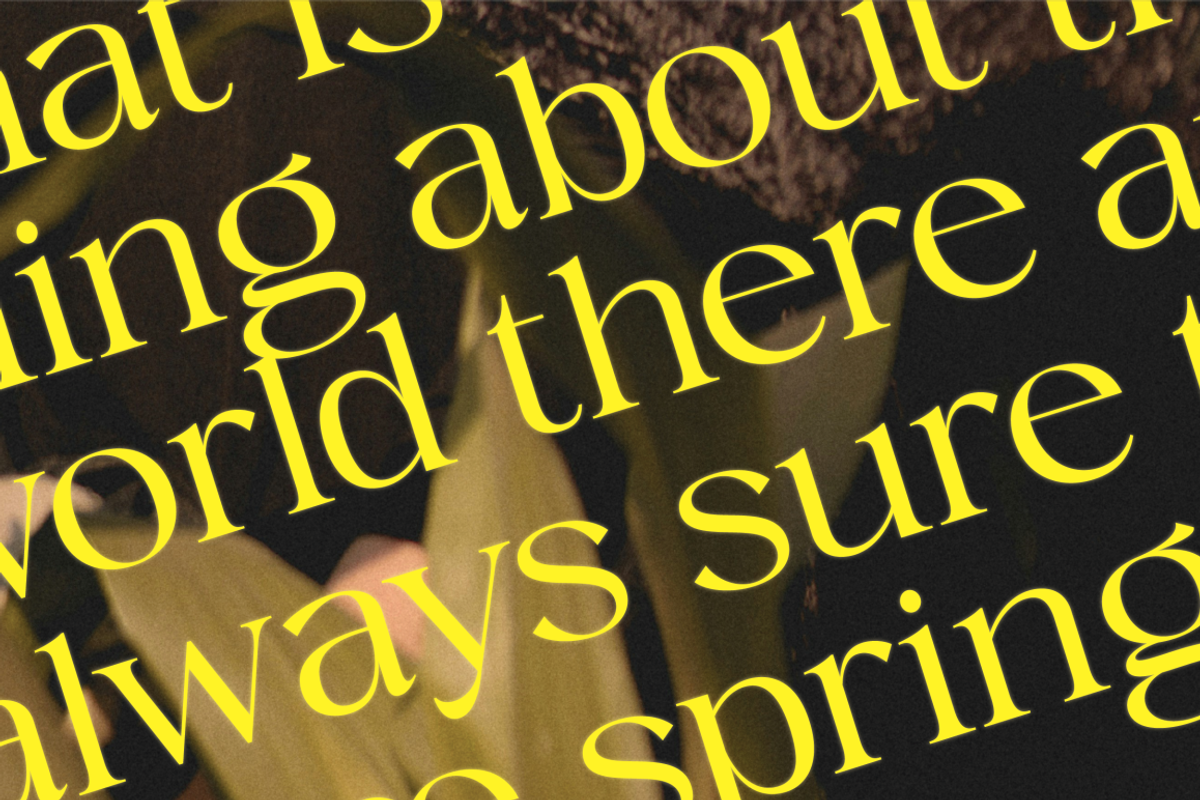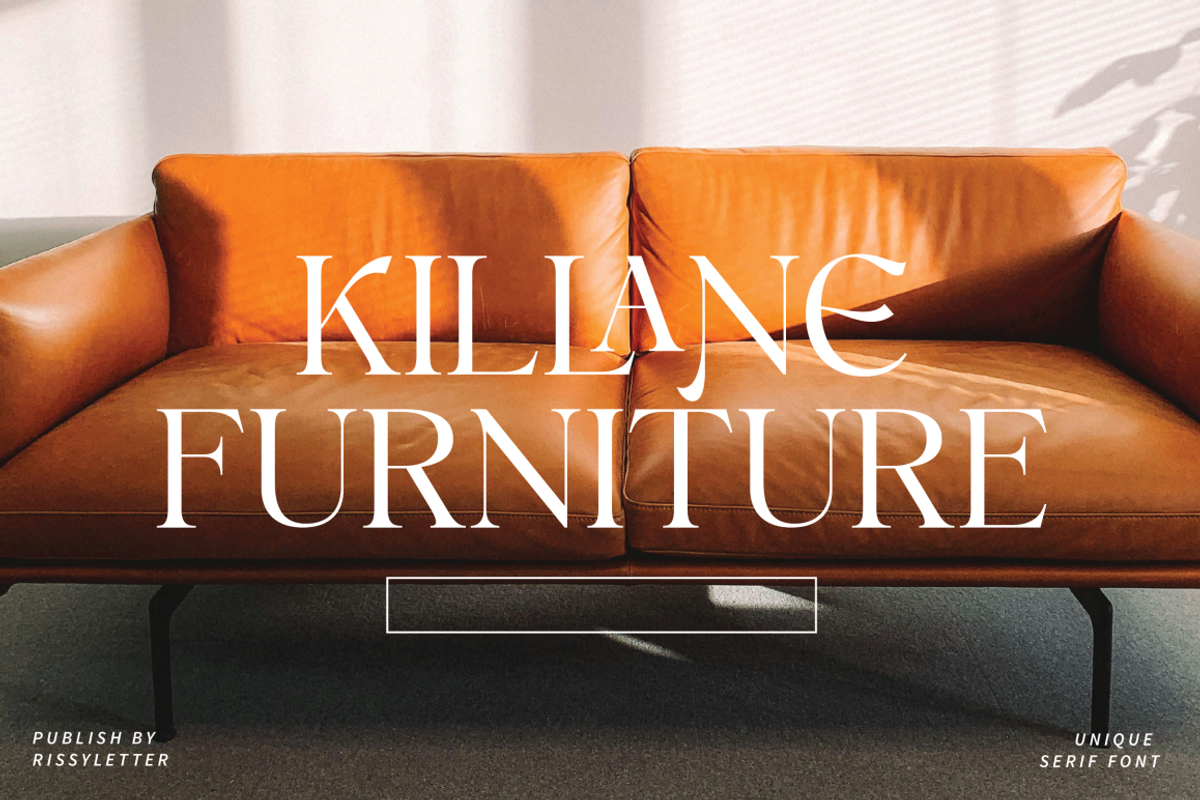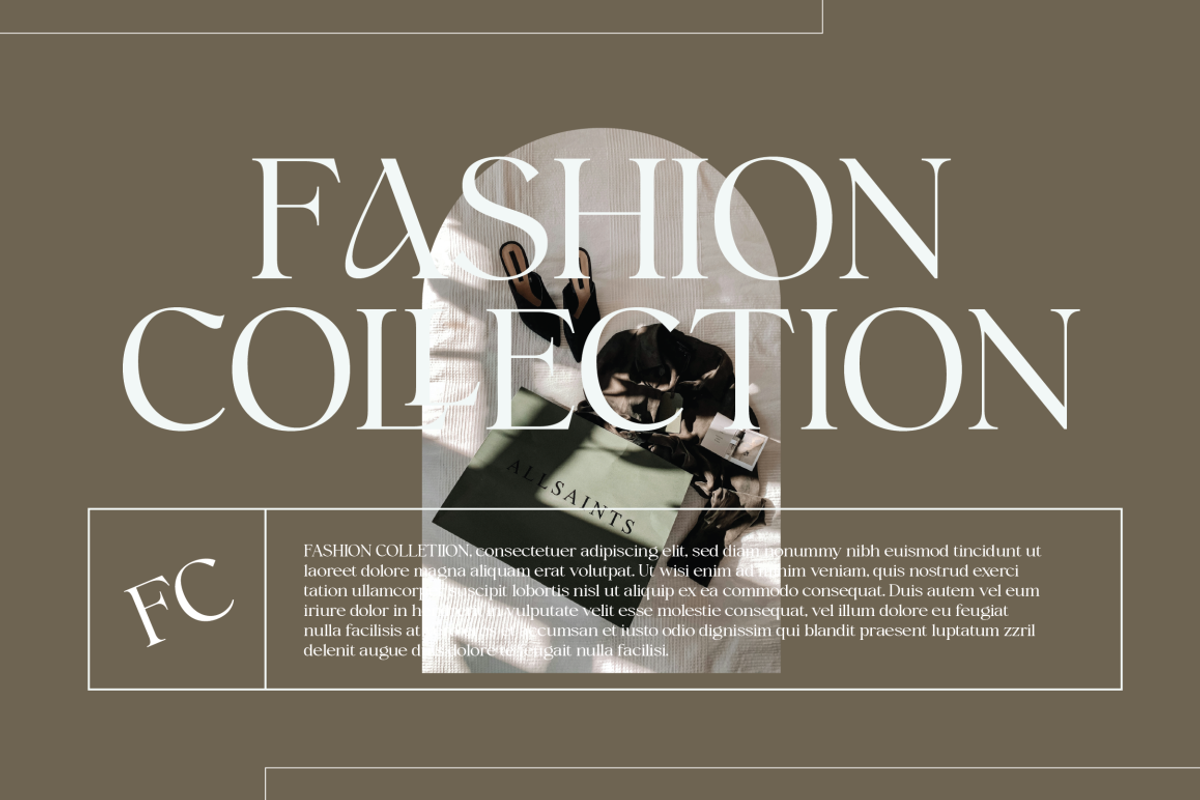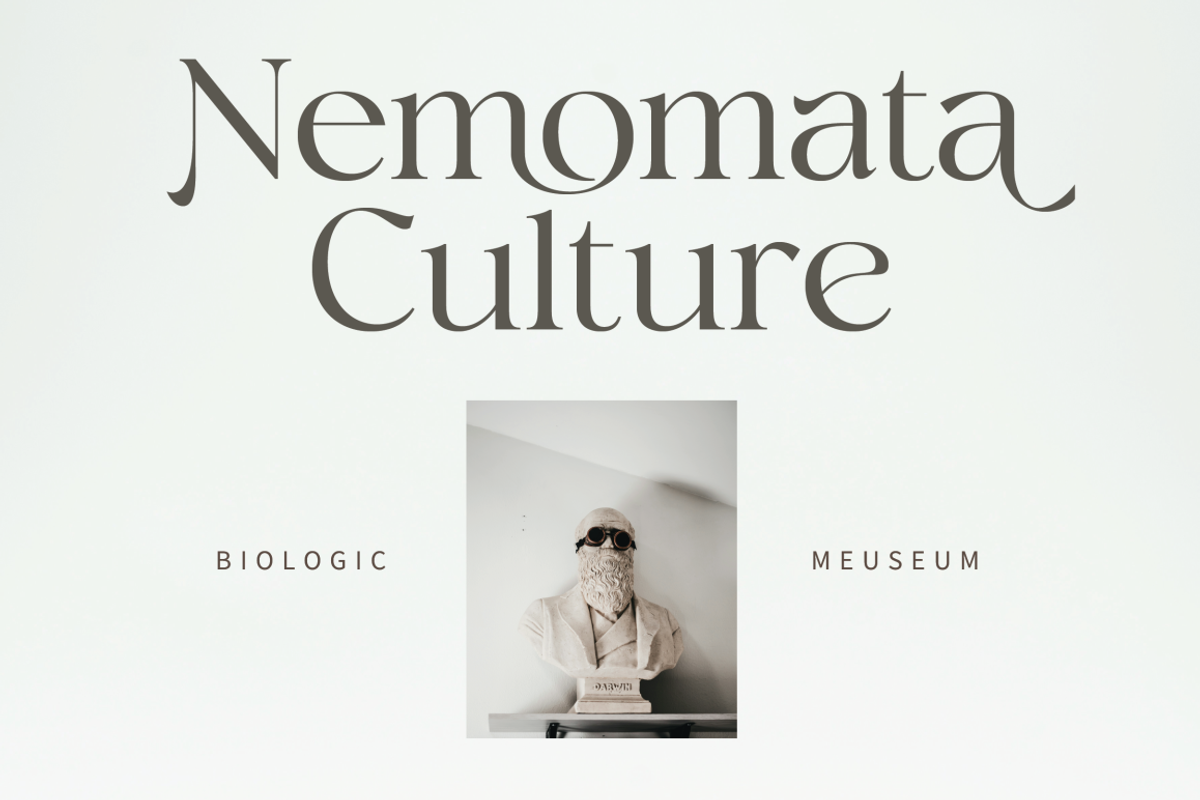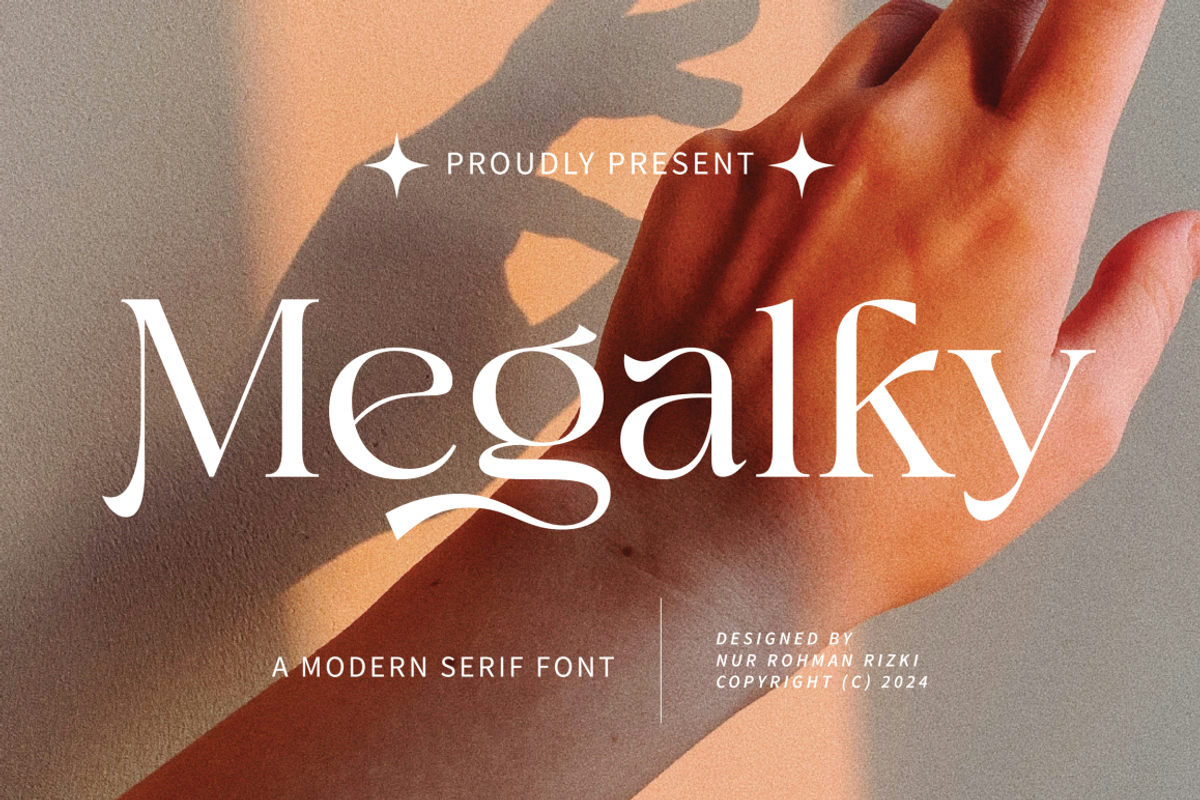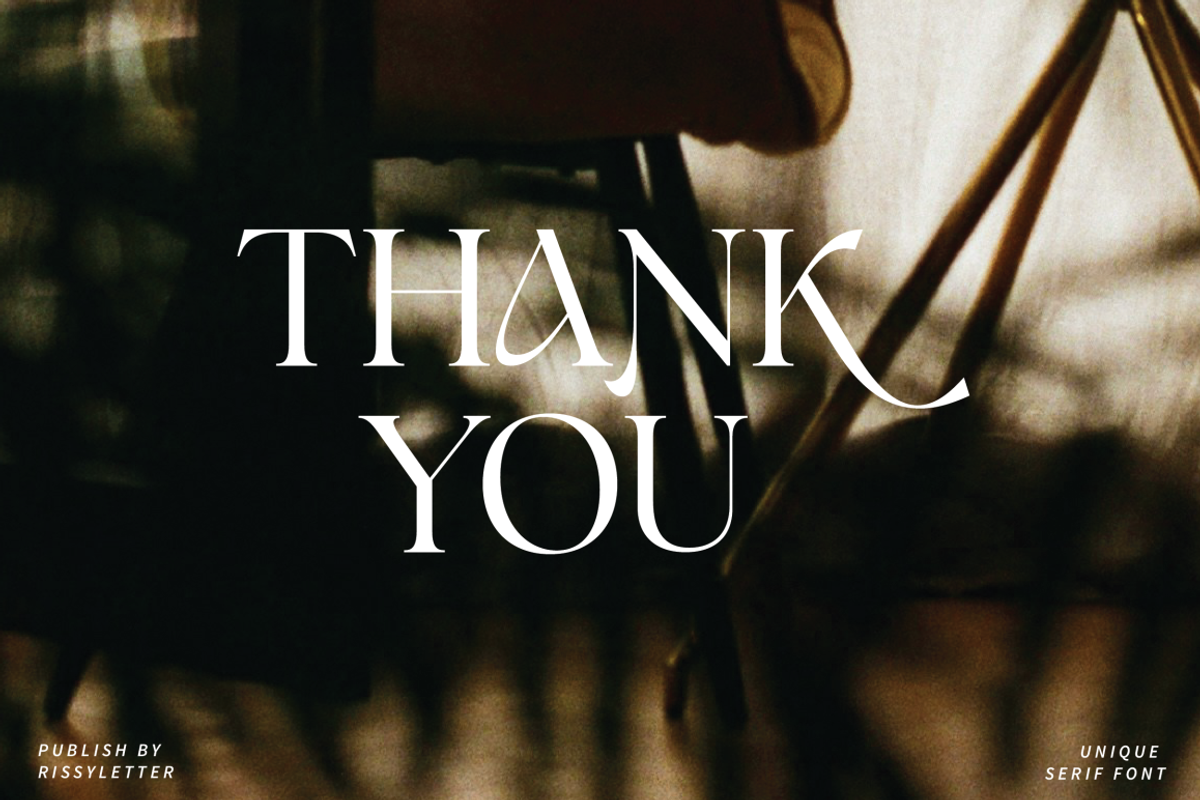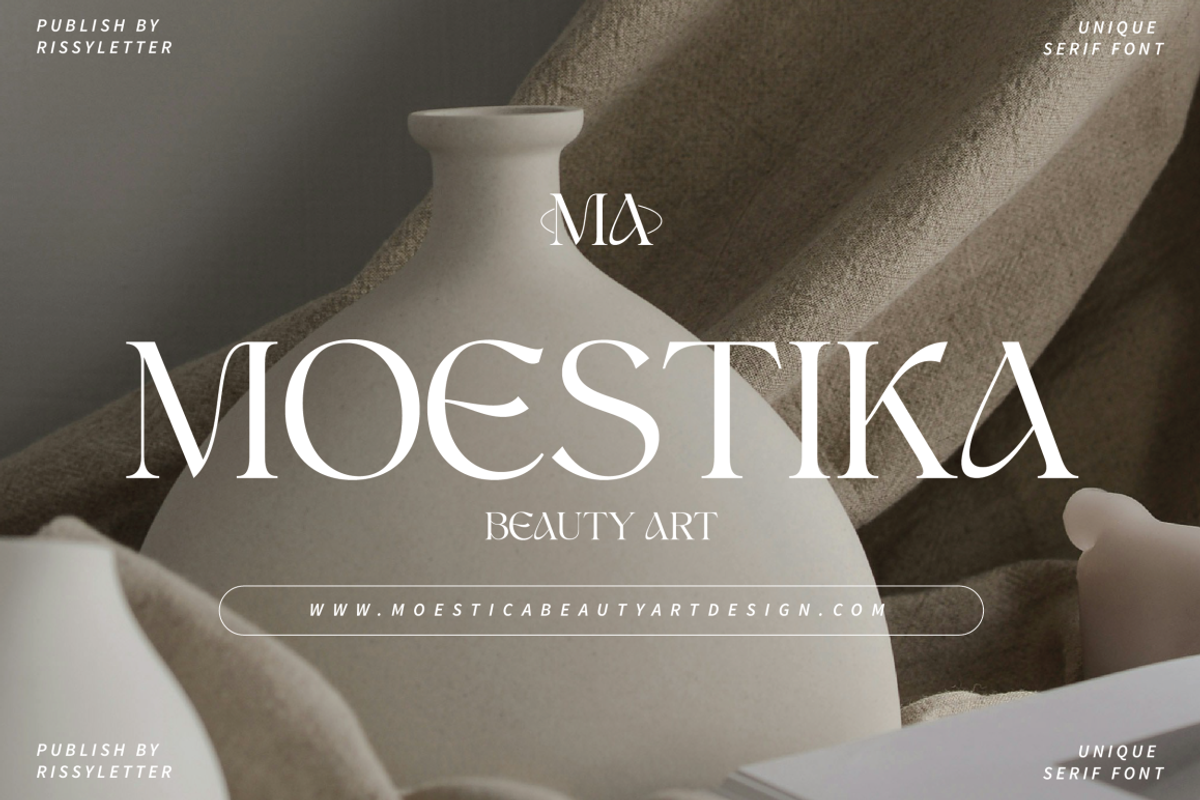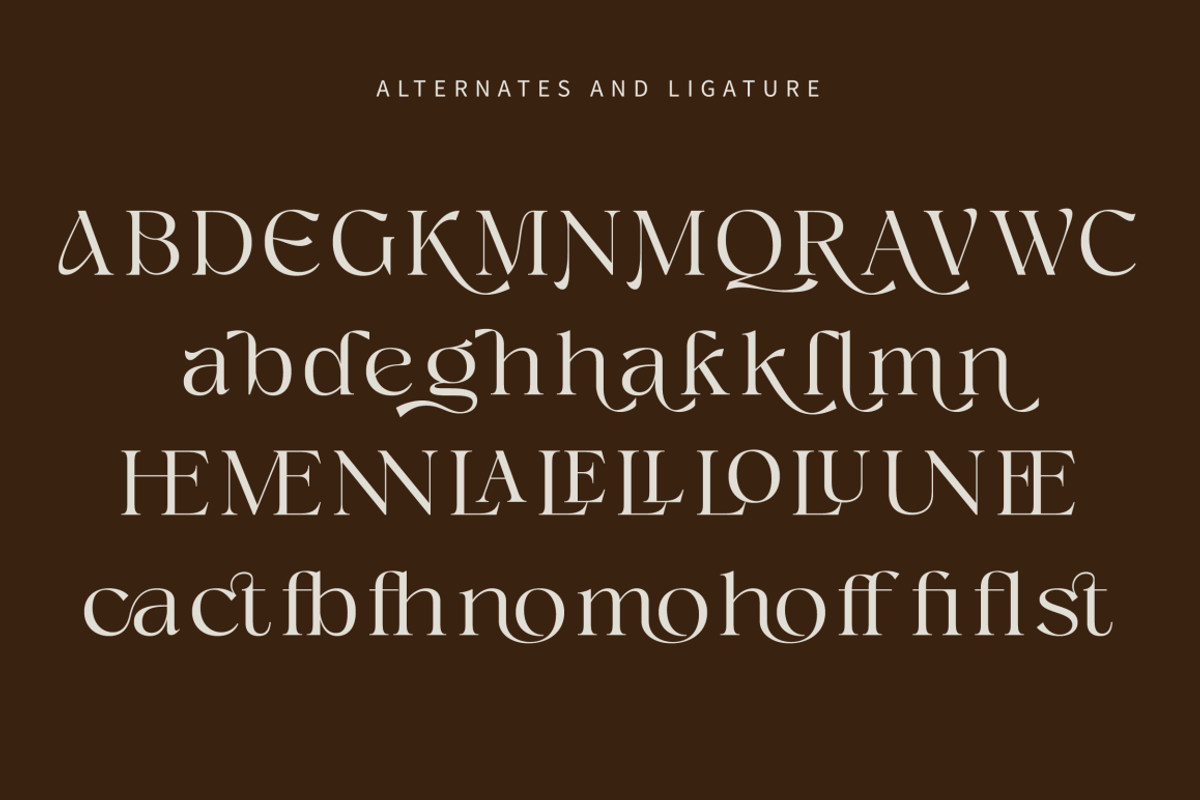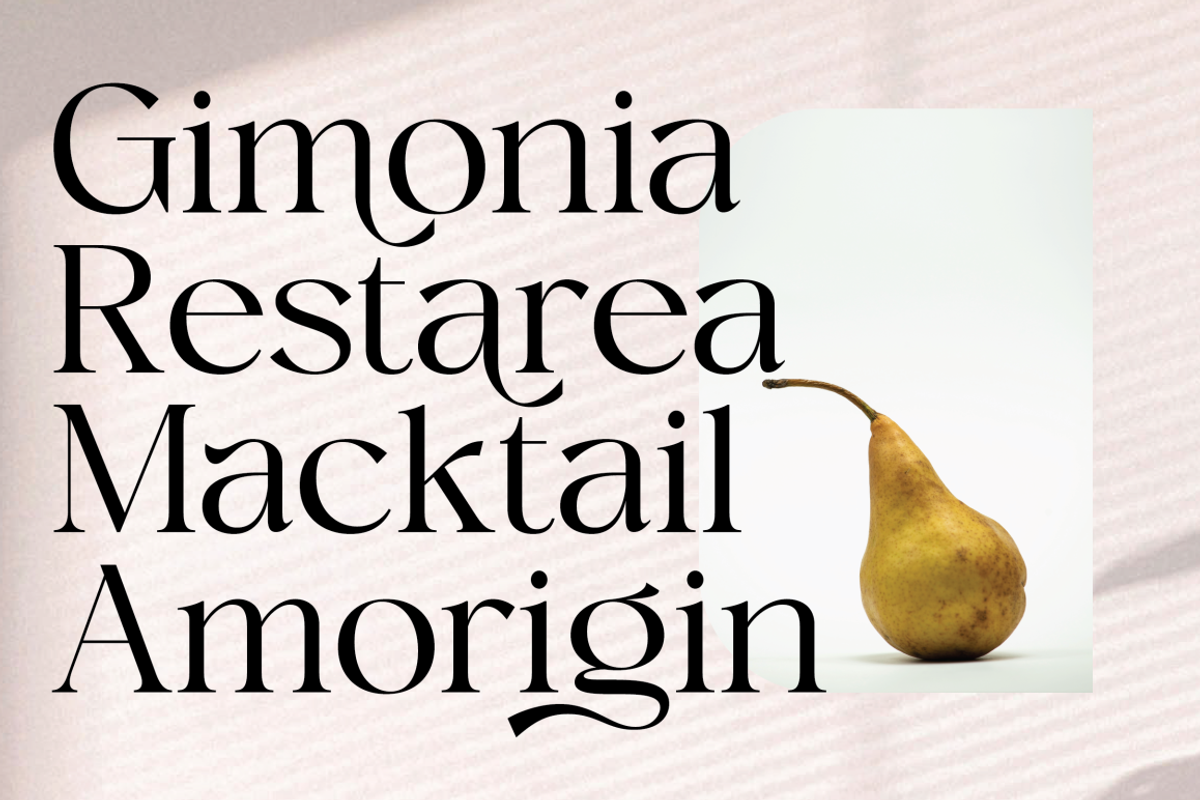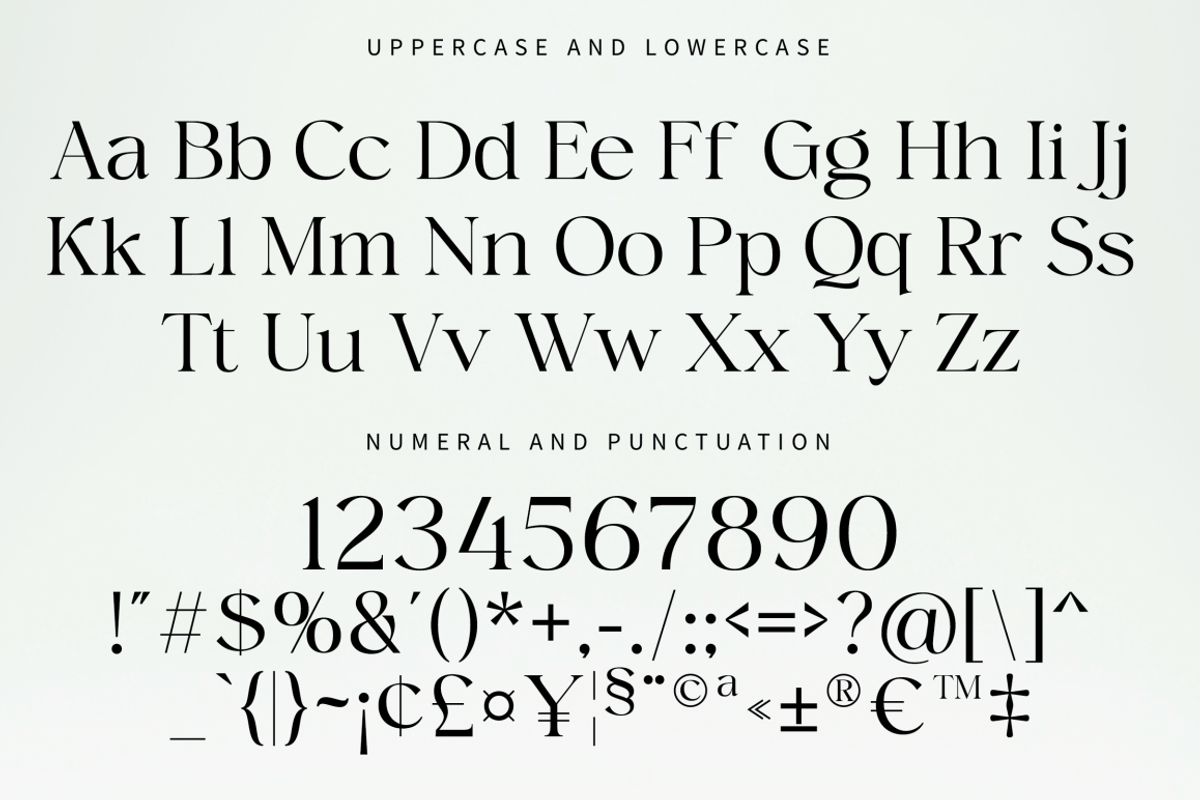
Megalky | Modern Elegant Serif Font
Introducing Megalky - modern elegant serif font
Megalky is a font that is made with care and precision, making the font look very elegant and modern. The curves in these letters add elegance to every word, making it the right choice for designers.
Megalky is perfect for branding, logotypes, wedding invitations, romantic quotes, labels, social media posts, advertising, product packaging, product designs, labels, photography, watermarks, invitations, stationery and any project looking for premium quality, luxury, and aesthetic feel.
Alternative Styles
Ligature
Uppercase and lowercase letters
Numbering and Punctuation